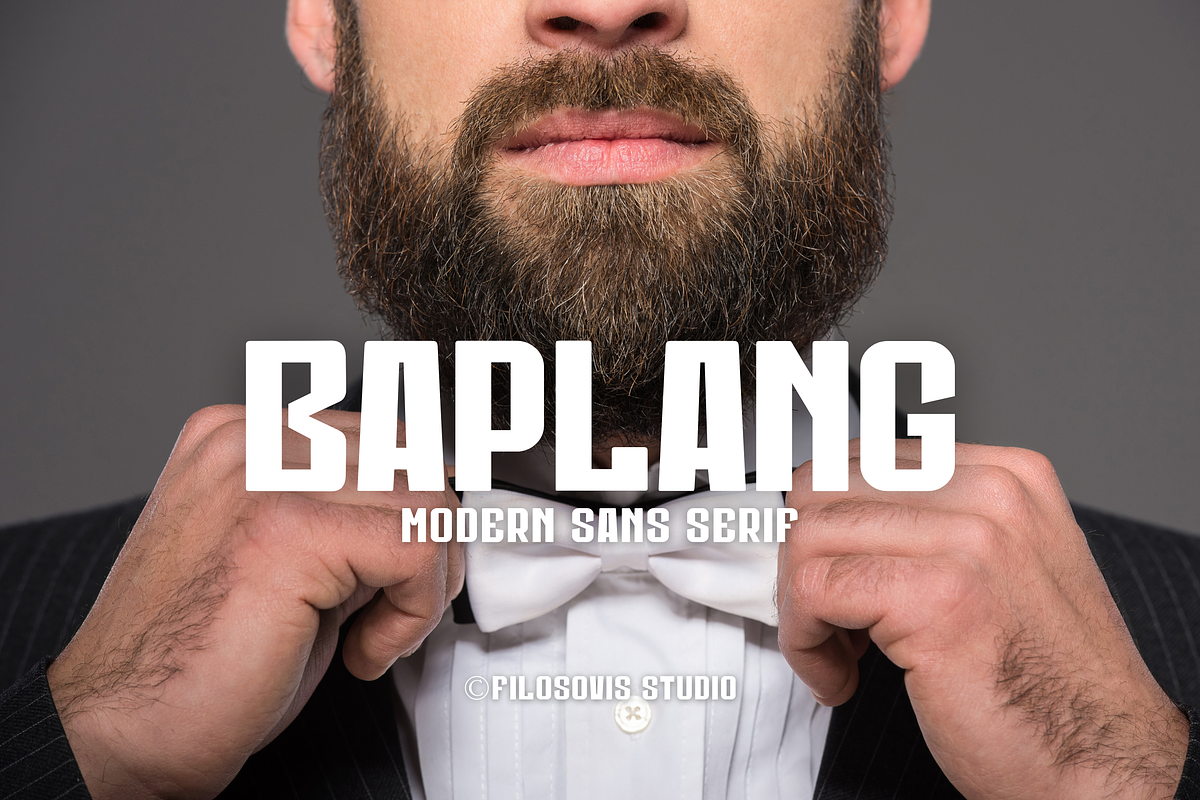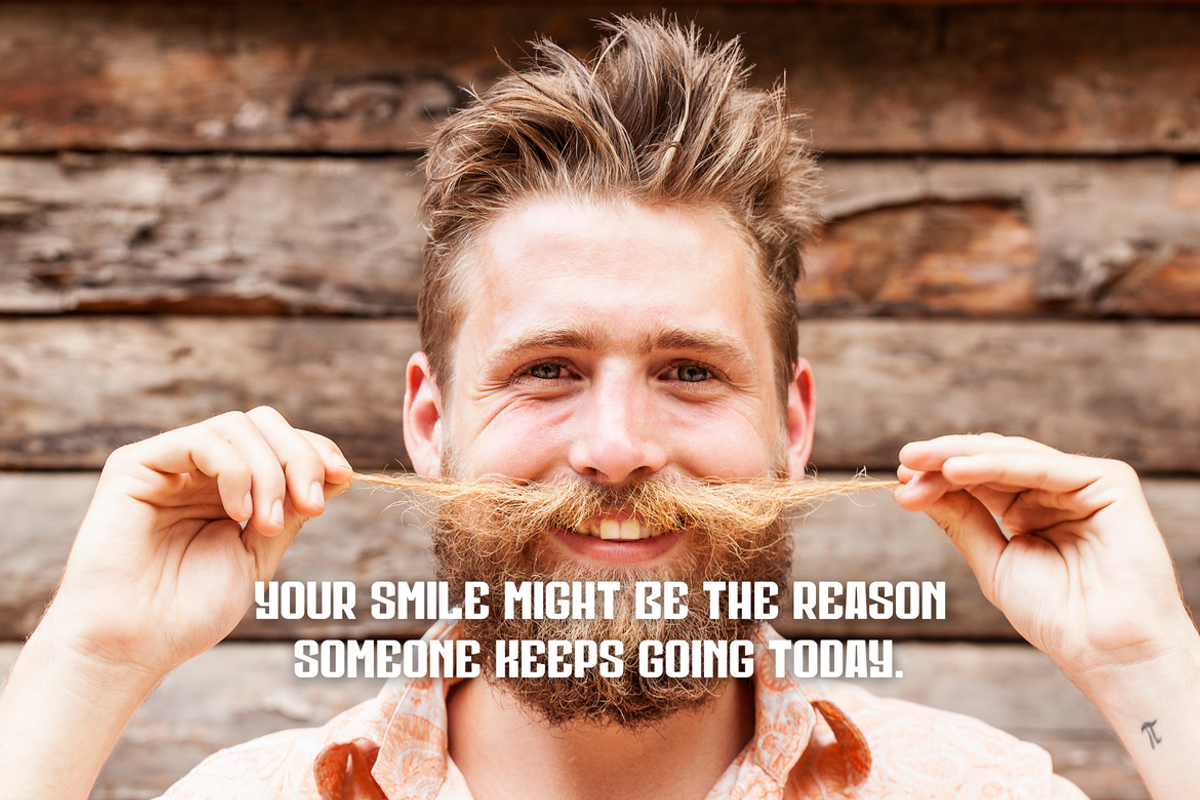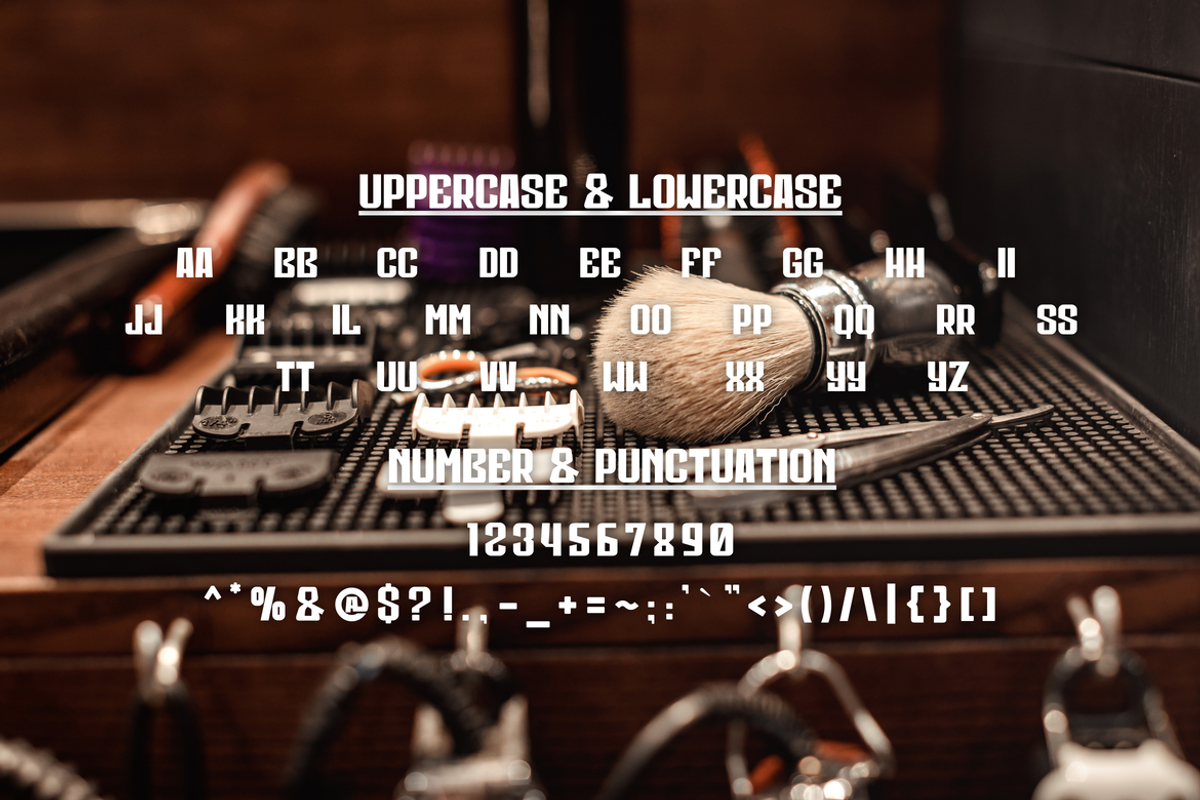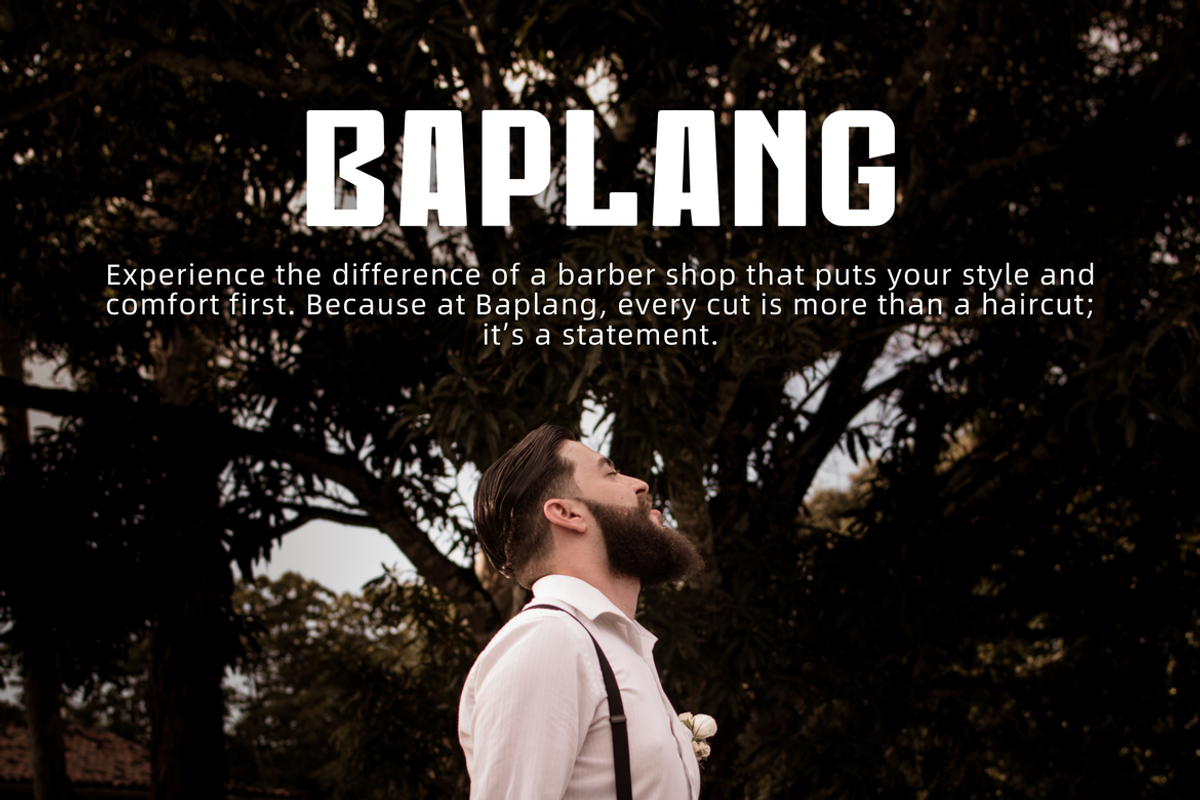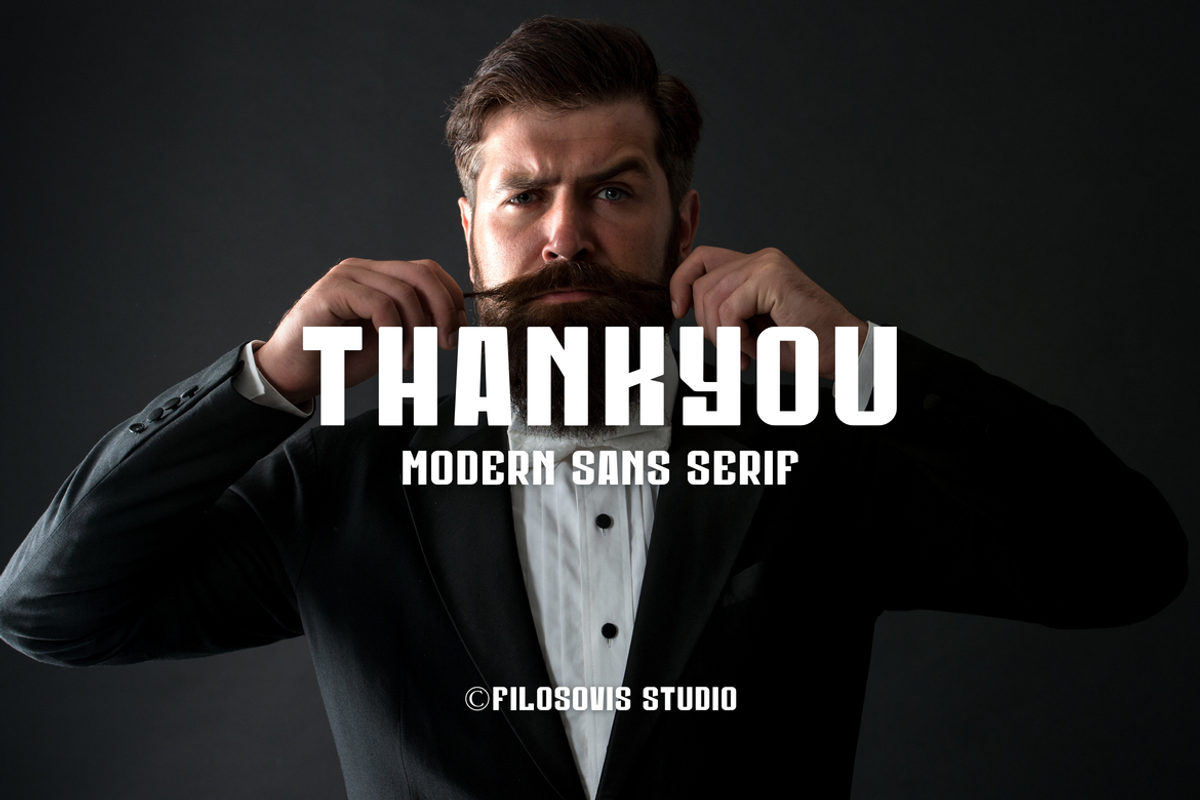
Baplang | Modern Sans Serif
For your creative project, use the Baplang-themed modern sans serif. modern sans serif is appropriate for every kind of design you produce, including greeting cards, posters, logos, and branding.